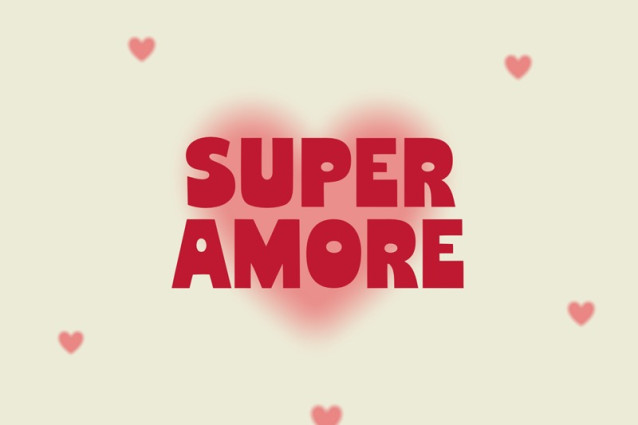
Super Amore Font is a simple and modern display font suitable for quotes, logos, headings, titles, and many more. Use it on any of your creative projects, and your designs will become outstanding!
Super Amore Font
| Classification: | Display Fonts, Modern Fonts |
Super Amore